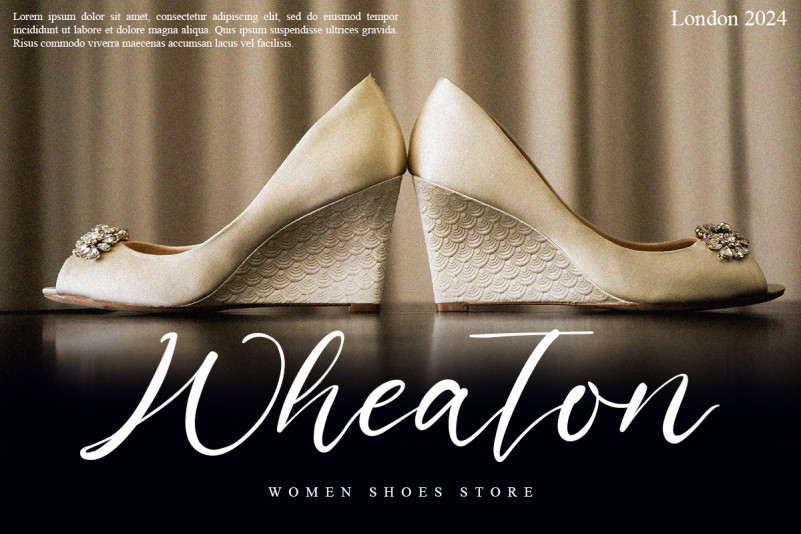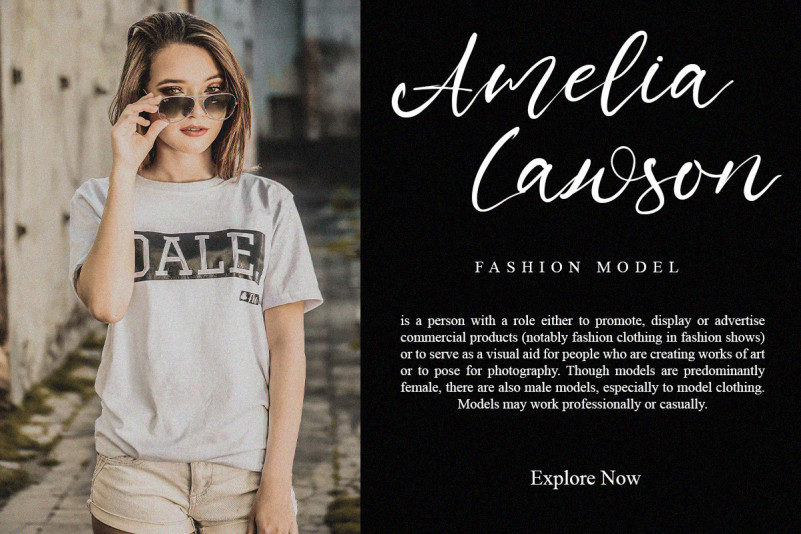
Ashdown Script Font
Ashdown Font is a beautiful signature font that has long lines that curve like the wind in spring. This font will be suitable for many industries such as accessories, cosmetic, fashion, interior design, perfume, publishing, screen printing, wedding, and more!
Ashdown Font includes full set of Uppercase and Lowercase Basic Characters, Numerals and Punctuation. Also it contains swoosh to make it flawless and add more aesthetics to perfect your extraordinary project such as clothes print design, case phone design, invitation, product packaging, quote, etc.